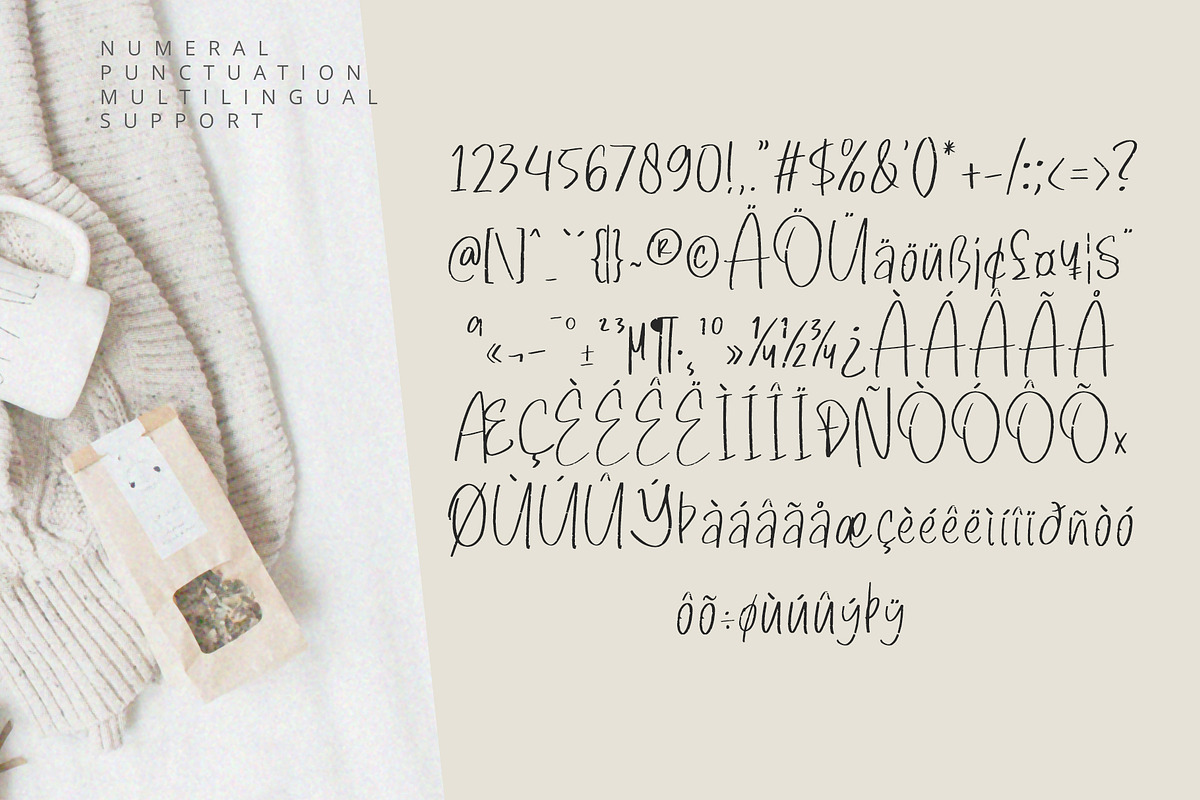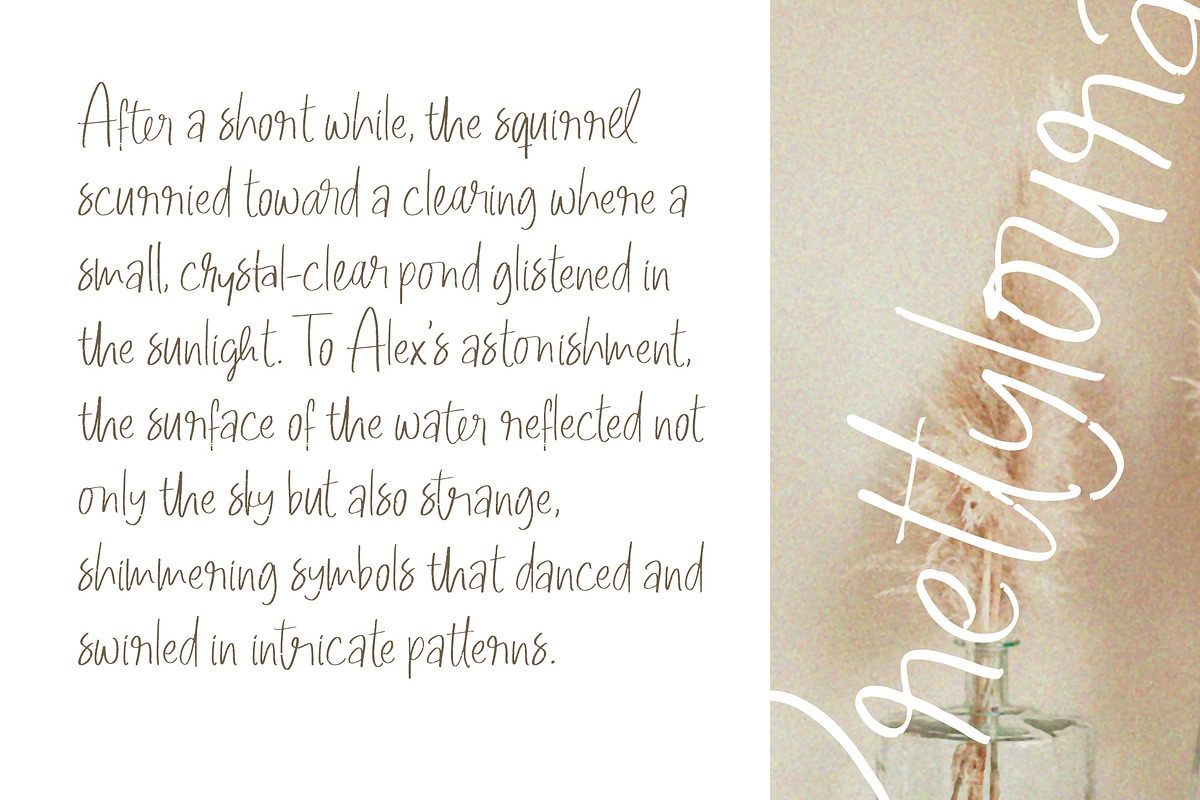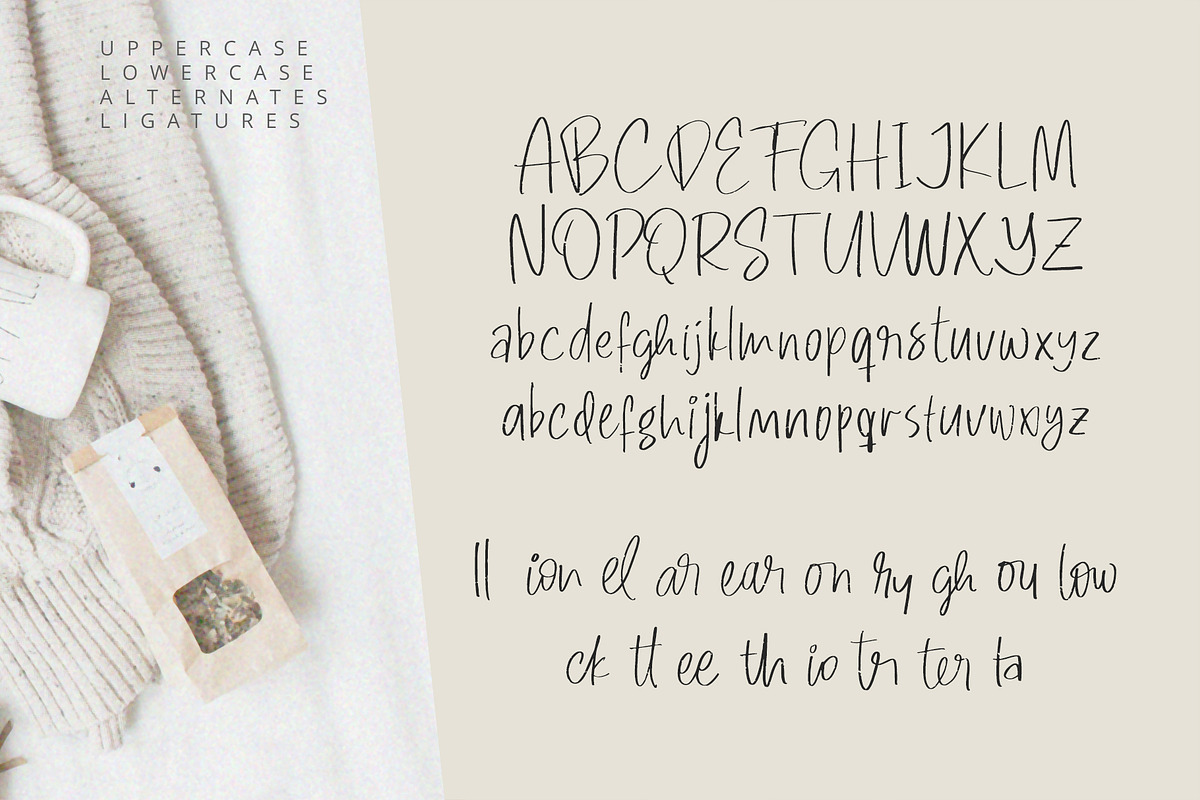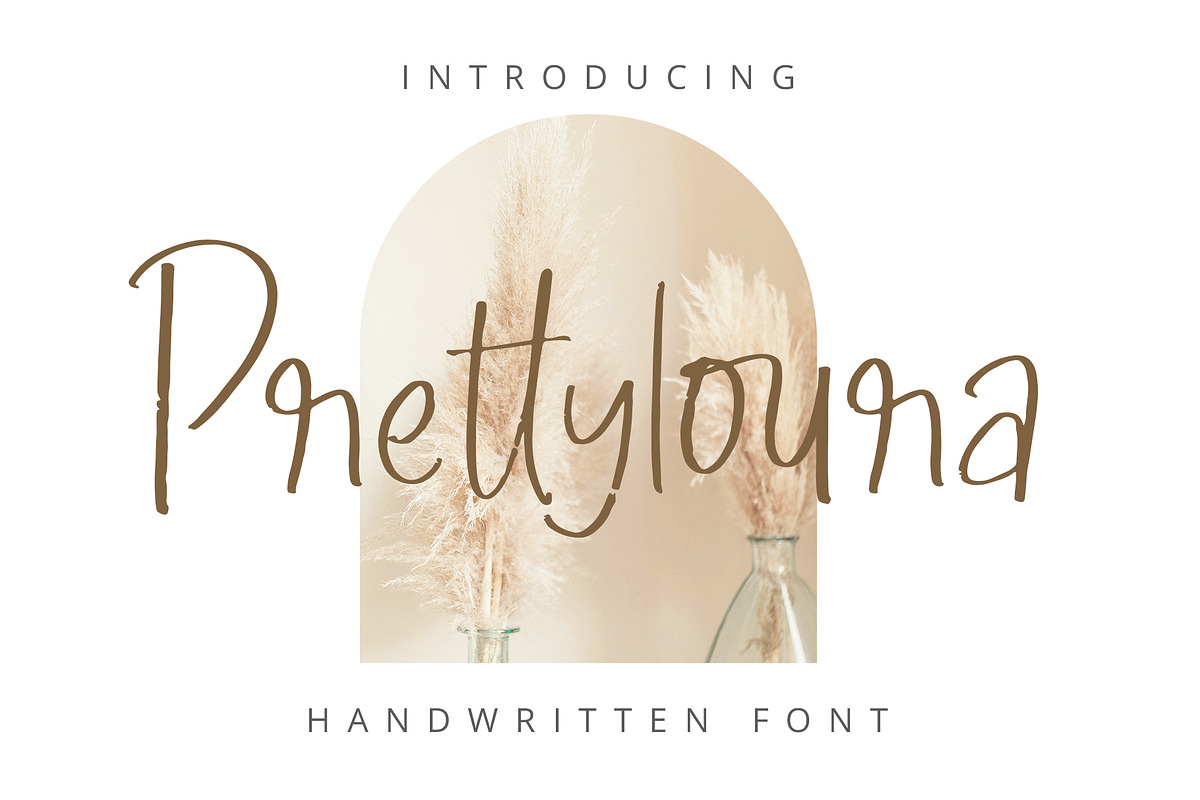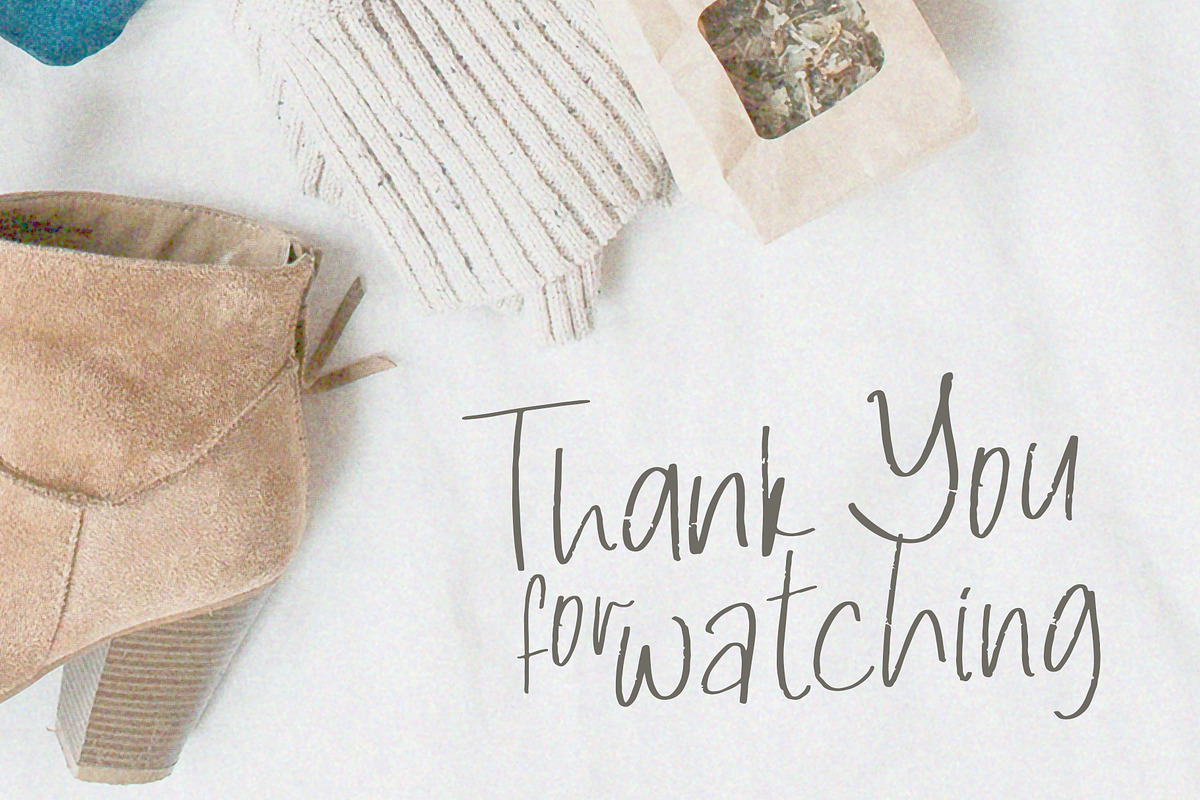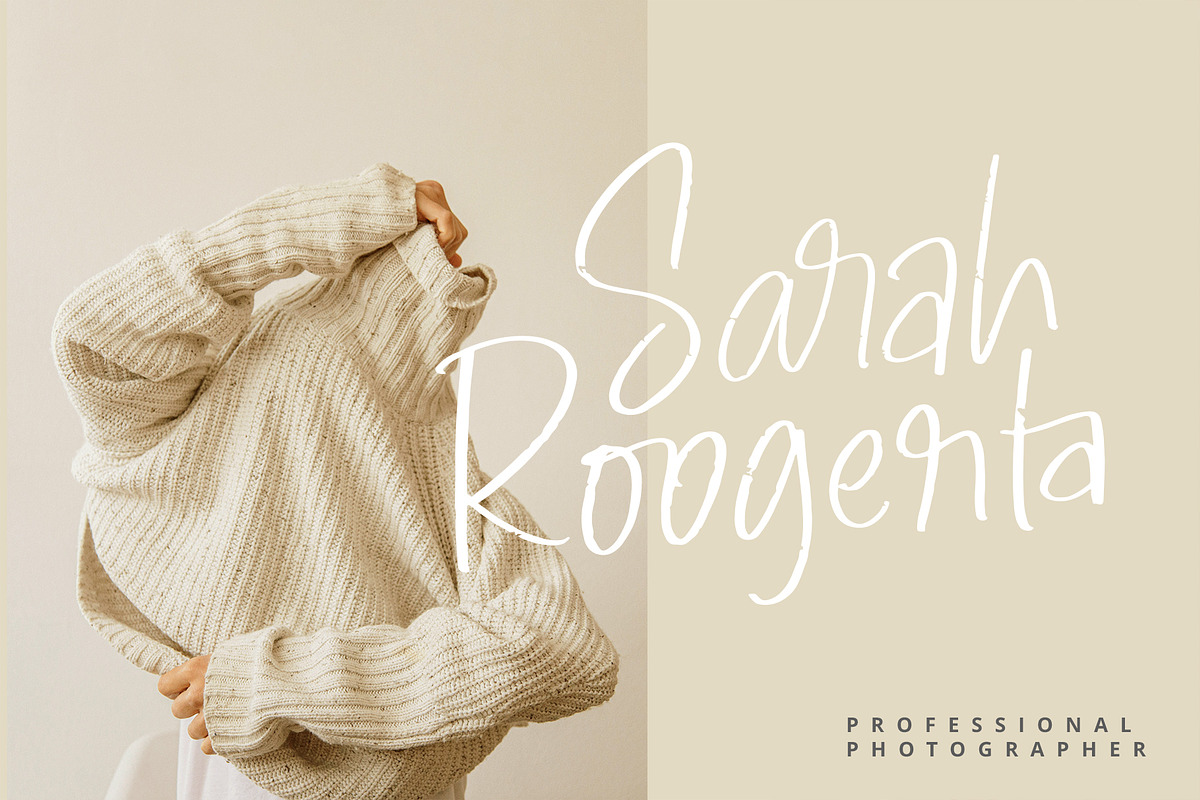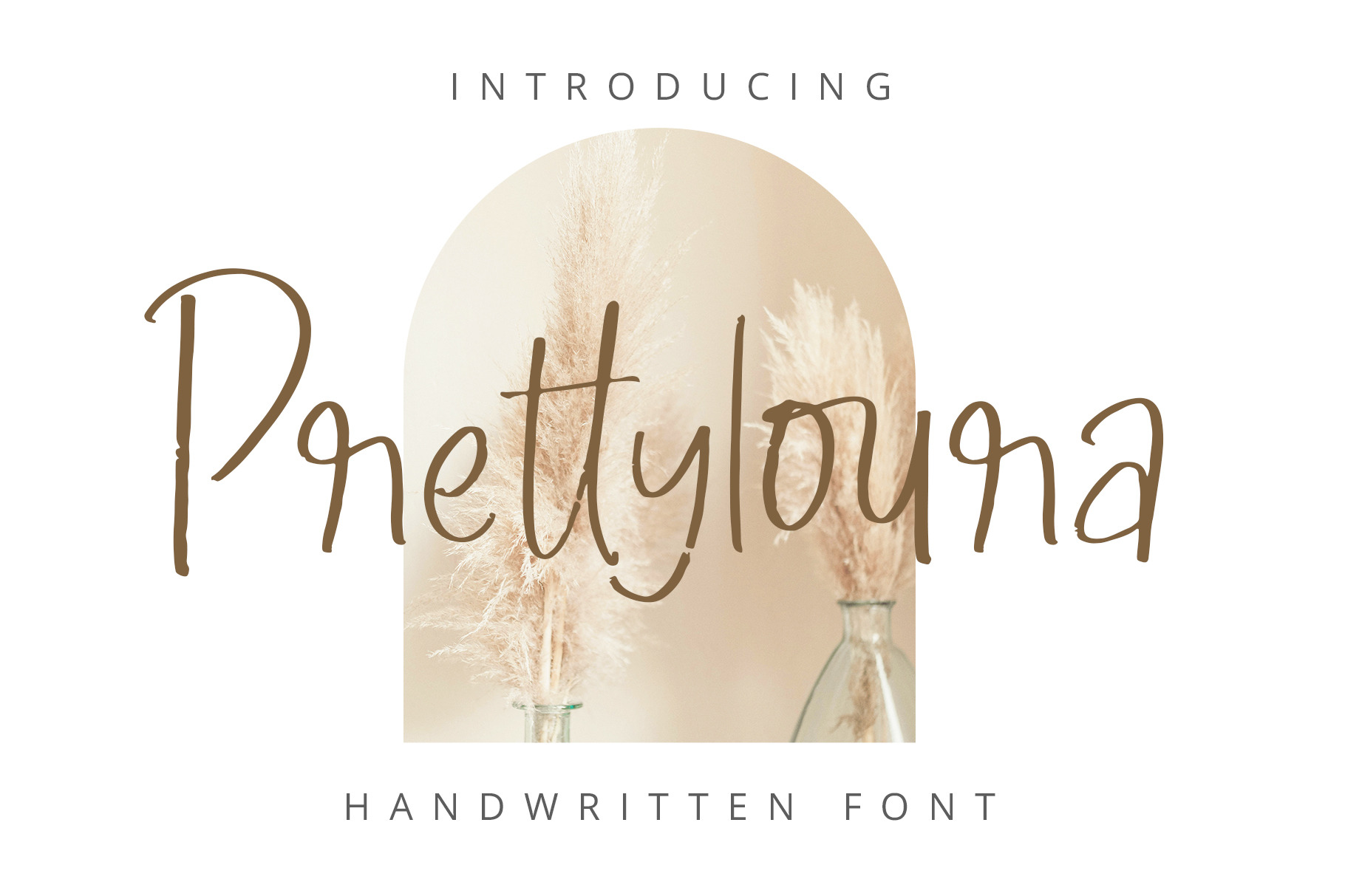
Prettyloura Handwritten Font
Prettyloura is a handwritten font with a soft curves, smooth, modern, and organic design.
Its combination of timeless elegance and contemporary style makes it the perfect choice for branding, stylish wedding invitations, and premium print materials.
Included in this set: -Full alphabet with Uppercase and Lowercase A-Z for script -Numbers for all fonts -Punctuation and symbols for all fonts -Ligature Lowercase script